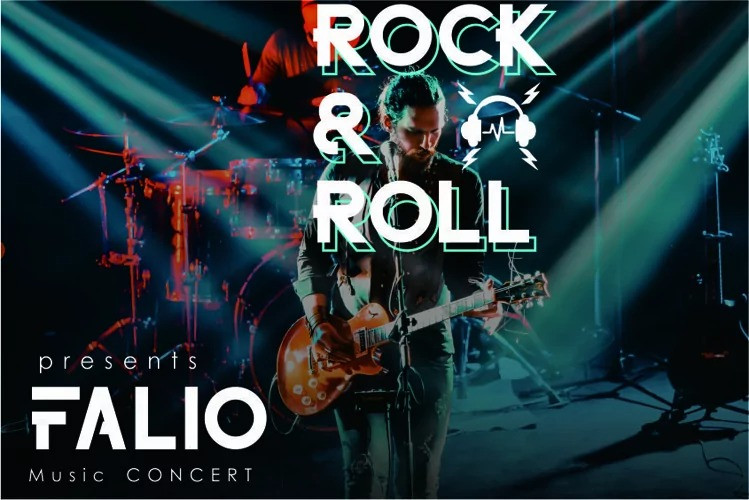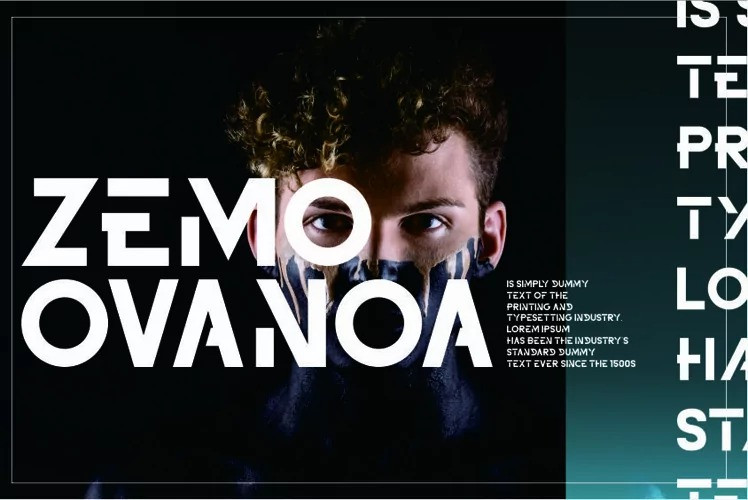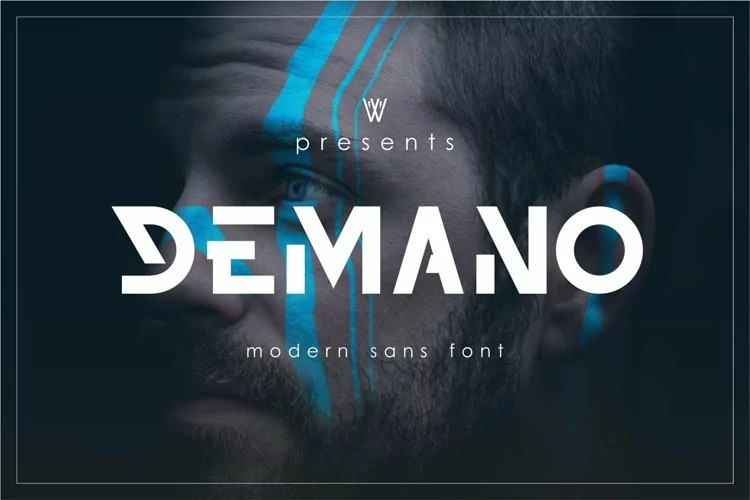
Demano Font
Demano Font. This font is a Modern sans type, but tends to be more of a display font, this font is ideal for creating title for a magazine or product promotion.
This product designed purposed for decorative and This font can also be used to design a product packaging. because this font has the right thickness to be easily eye catching to attract the attention of consumers.